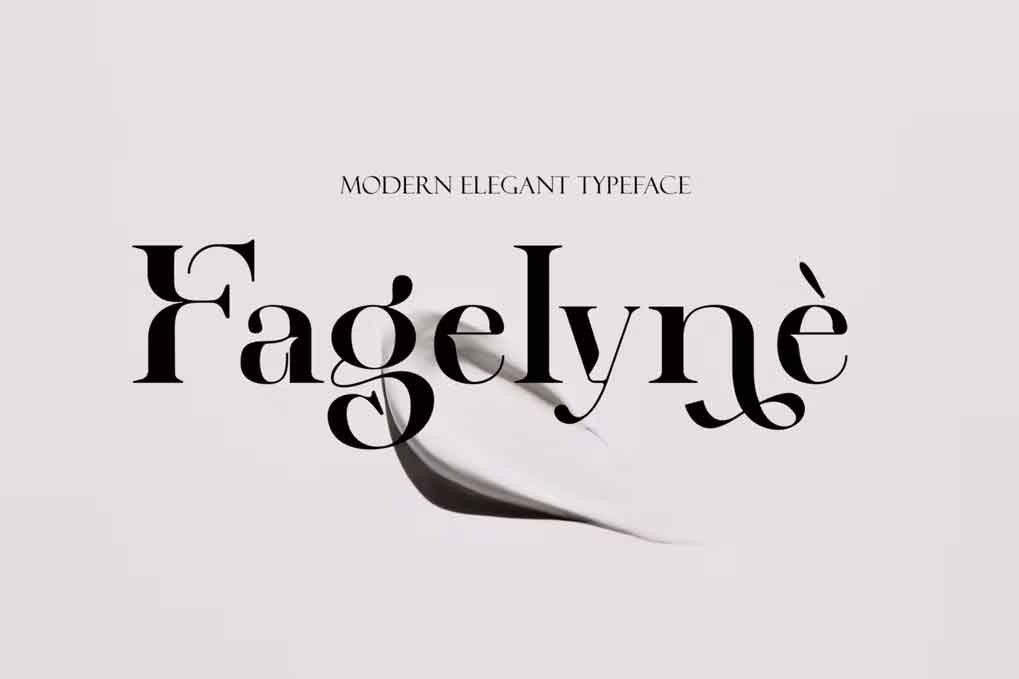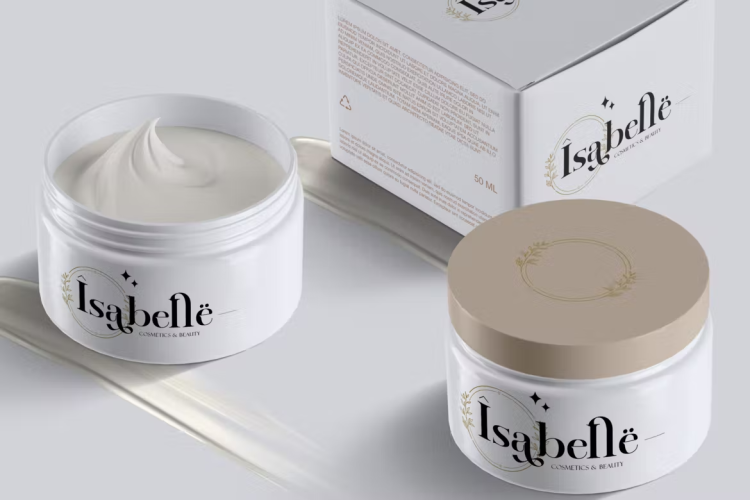
Modern Elegant Font
Looking for a modern and extravagant font that is easily memorable? In the sea of similar designs, something unconventional but tasteful will certainly put your brand on the map.
Introducing Fagelyne – A Modern Elegant Font.
Use this font for promotional material, ads, web pages, apps, clothing, printed material, and anything else you need to make your brand shine.
Modern Elegant Font is a Decorative Fonts font that brings a professional and versatile look to your projects. Looking for a modern and extravagant font that is easily memorable? In the sea of similar designs, something unconventional but tasteful will certainly put your brand on the map.